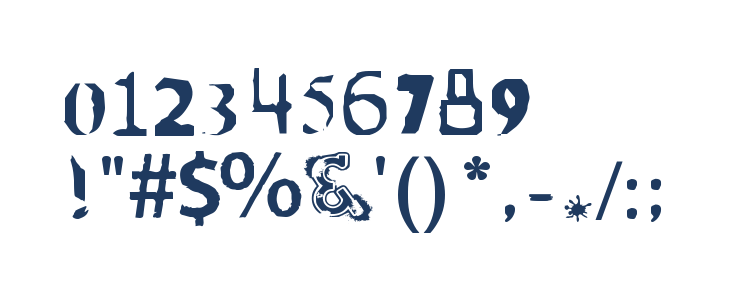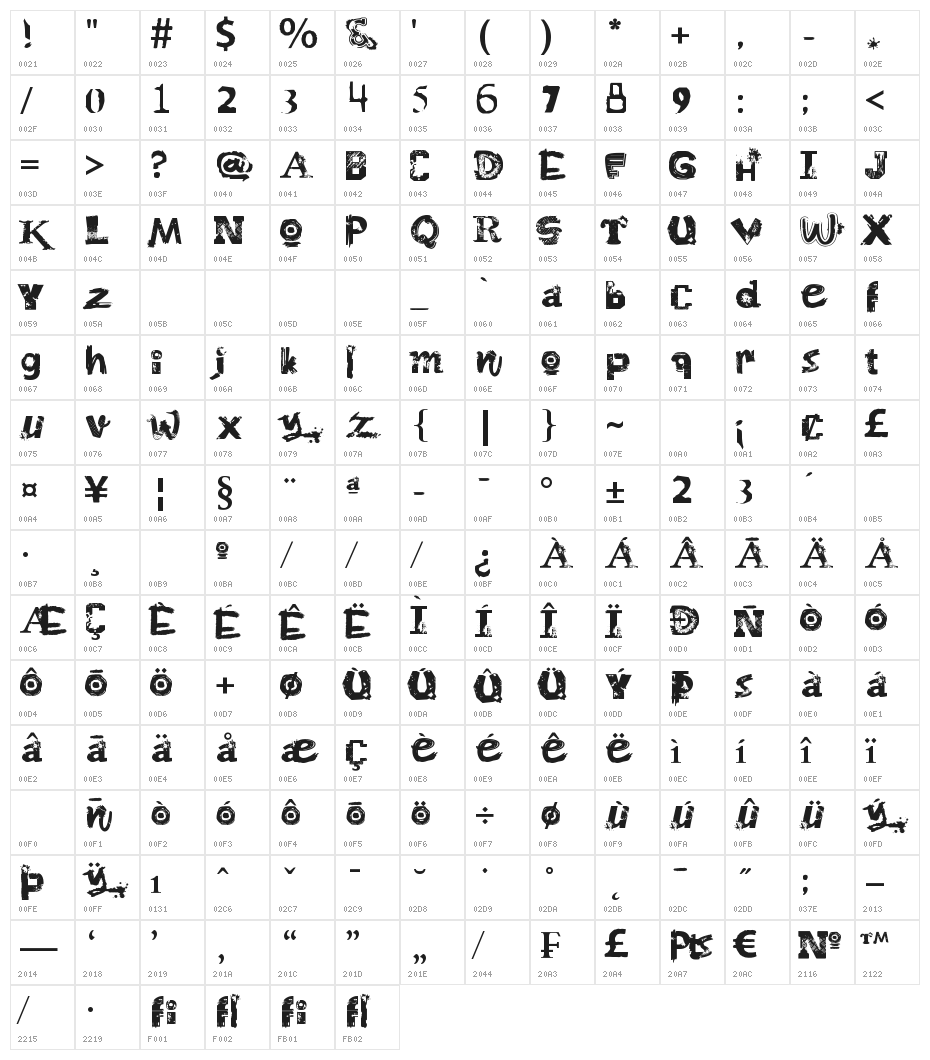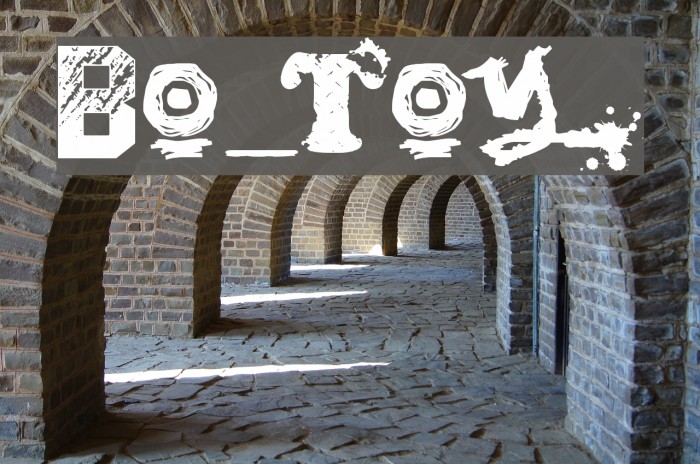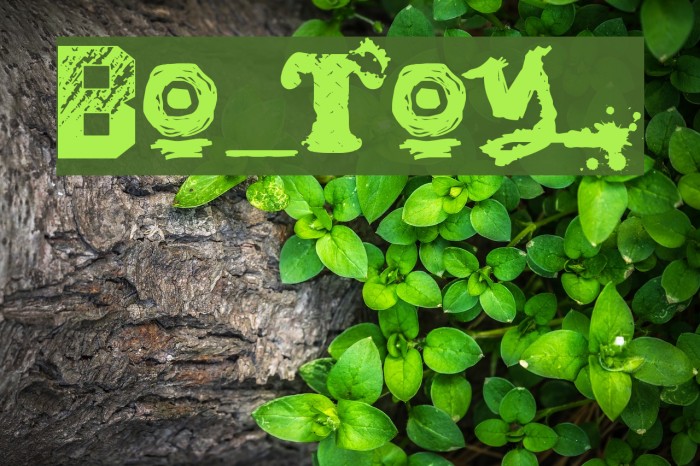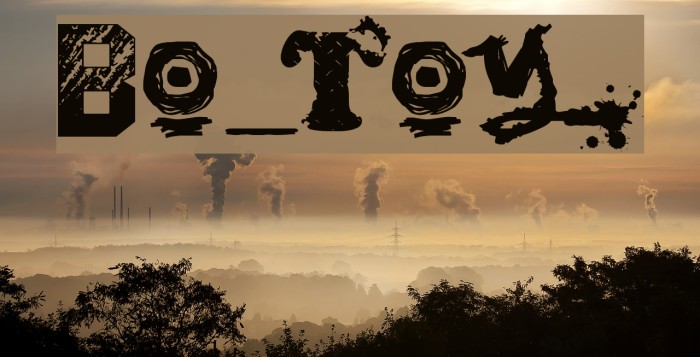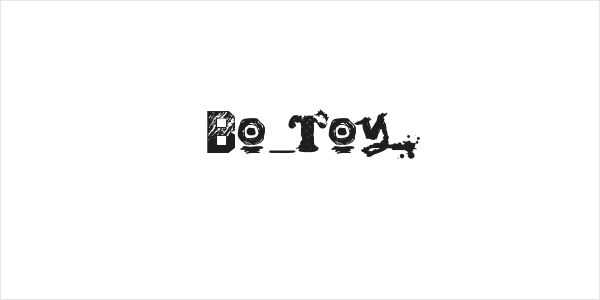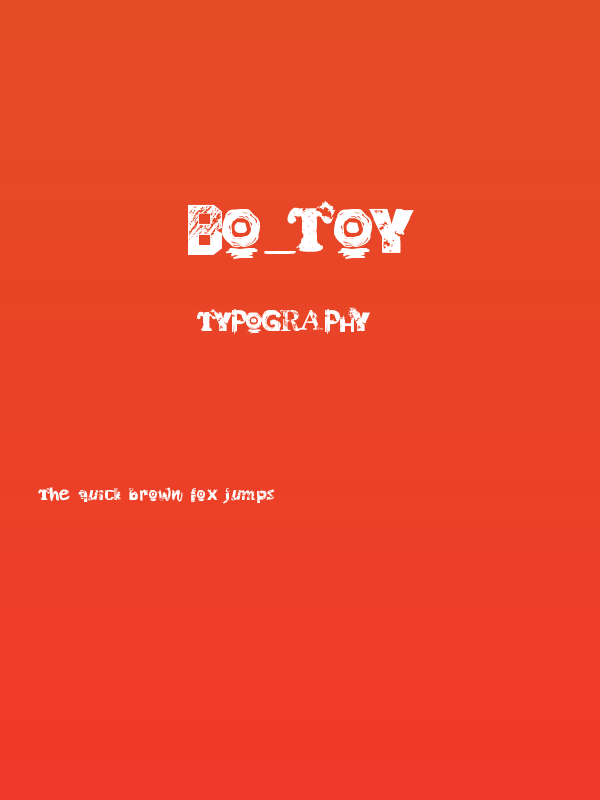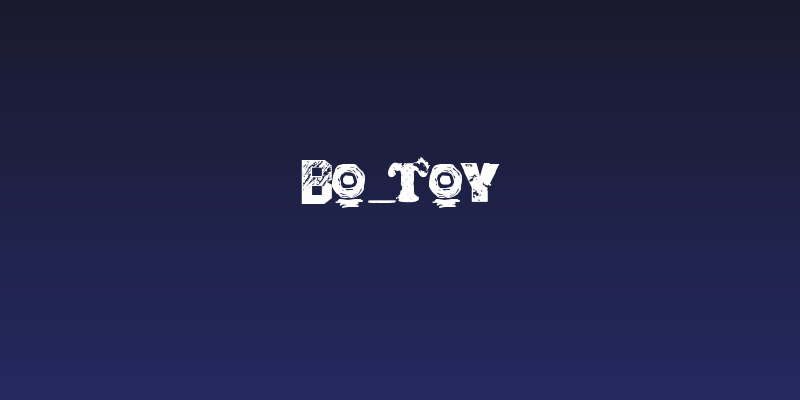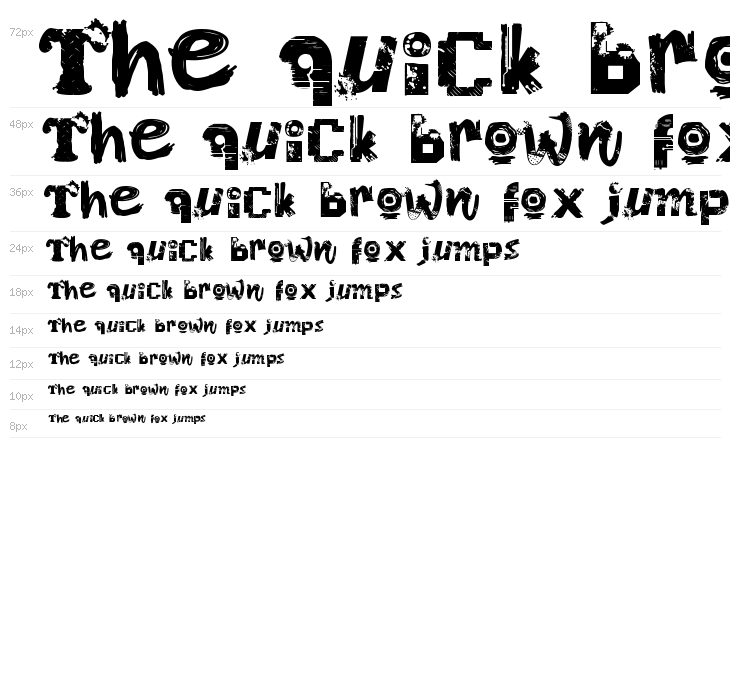
Bo_Toy Font
Bo_Toy Description
This font exhibits a dynamic and distressed style, characterized by its rough, textured appearance. Each character appears as if it has been weathered or eroded, giving it a gritty, urban feel. The uppercase and lowercase letters maintain a consistent theme of irregular edges and varying thickness, adding to the chaotic yet artistic nature of the design. The numerals and special characters follow the same aesthetic, ensuring a cohesive look across all elements. This font is particularly eye-catching and would stand out in any design project that aims to convey a sense of edginess or rebellion.